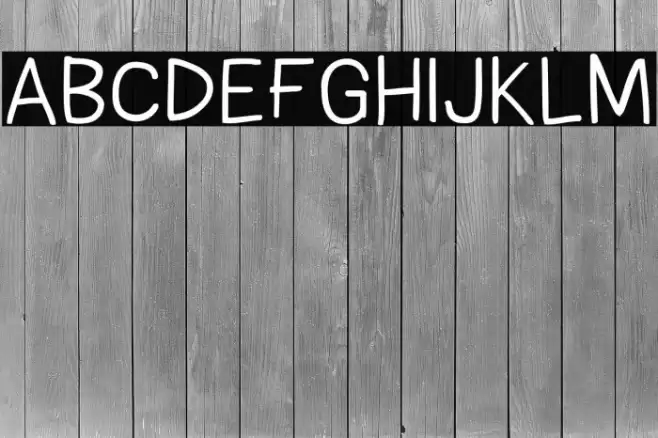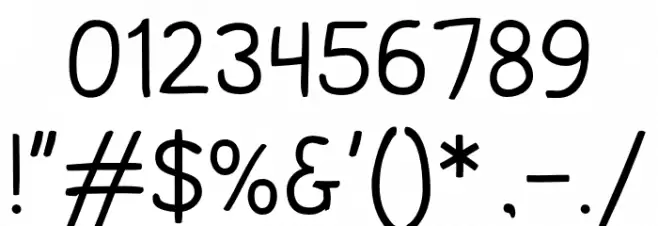
Comica Regular Font
Comica Regular Description
This playful and informal font features a handwritten style with rounded edges and a casual appearance. The letters are slightly irregular, giving it a whimsical and friendly feel. The uppercase and lowercase letters maintain a consistent style, with a slight tilt and varying stroke thickness that adds to its charm. The numbers and special characters are designed to match the overall playful aesthetic, making it suitable for creative and fun projects.
A playful, handwritten font with rounded edges and a casual style from Comic fonts.
- Proposed Projects: Ideal for comic books, children's books, playful branding, and casual invitations.
- Overall Style: Casual, Playful
- Use Case: Headlines, Logos, Informal Text